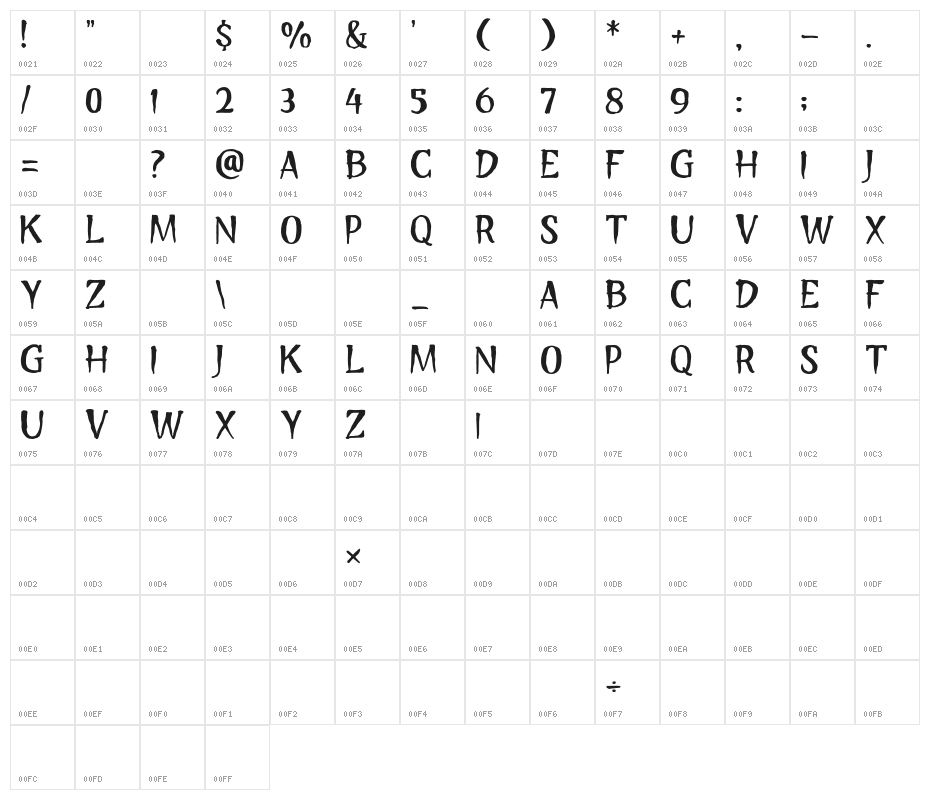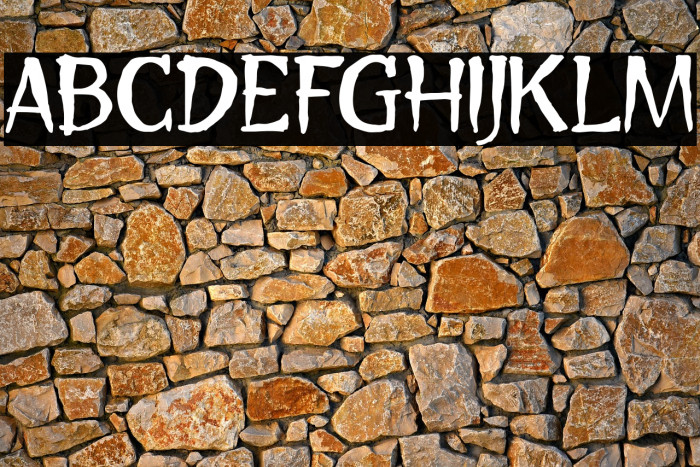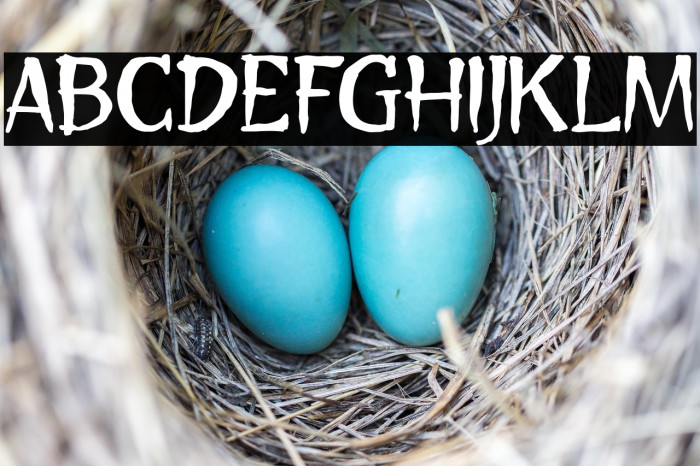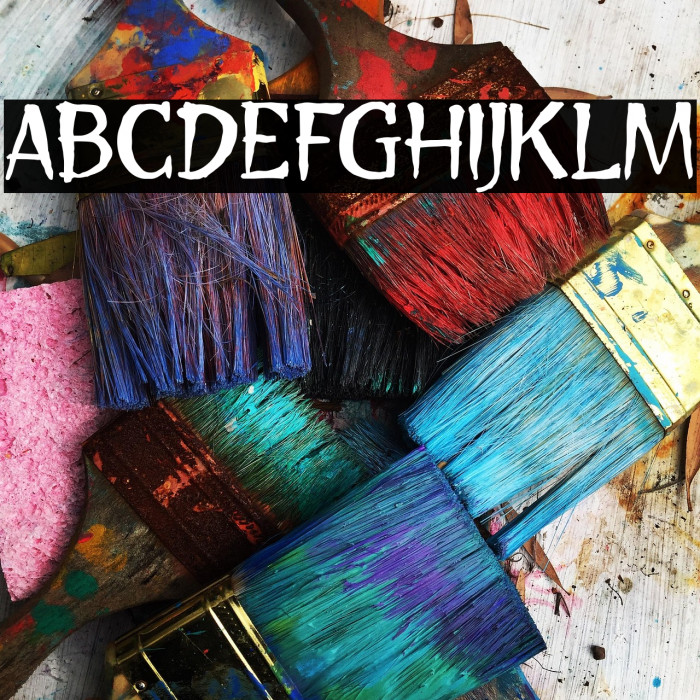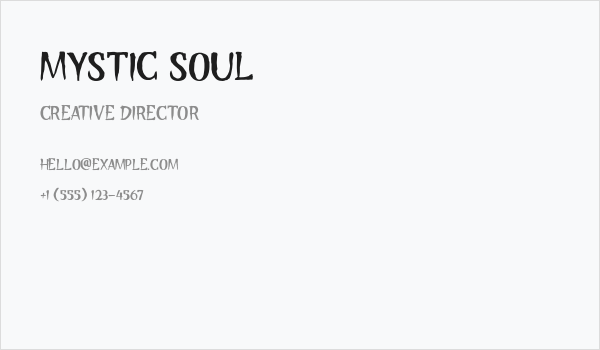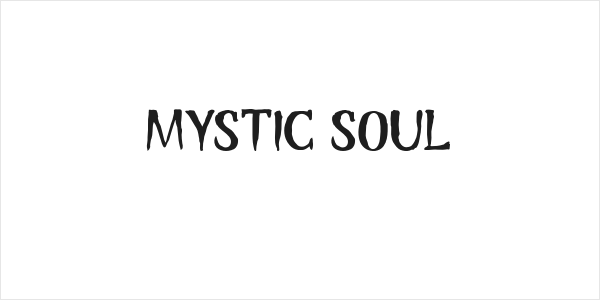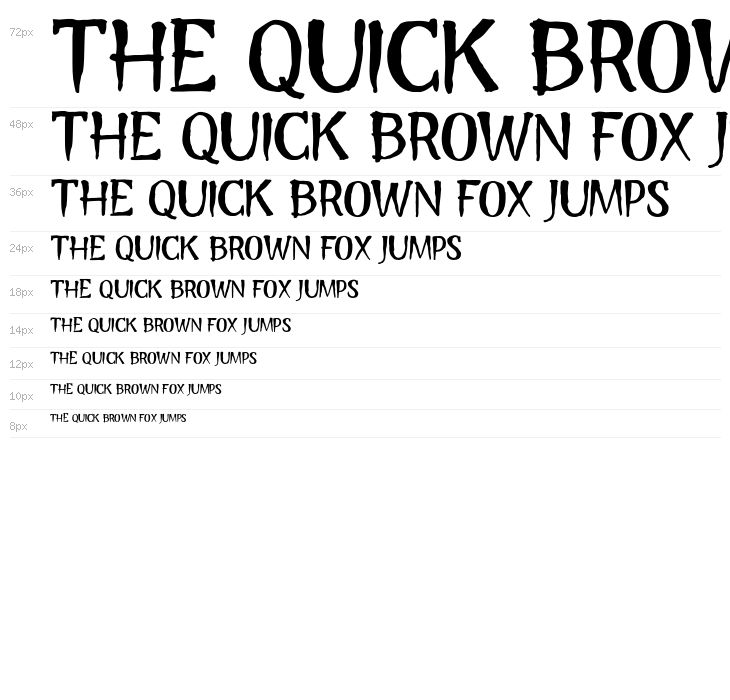
Mystic Soul Font
Mystic Soul Description
This font exudes a mystical and artistic flair, characterized by its hand-drawn, brush-like strokes. The letters have an uneven, organic quality, giving them a unique, handcrafted appearance. The uppercase and lowercase characters maintain a consistent style, with slightly exaggerated serifs and varying stroke widths that add to its charm. The numbers and special characters follow the same artistic theme, ensuring a cohesive look across all text elements. This font is perfect for projects that require a touch of creativity and individuality.
| Overall Style | Artistic, Handcrafted |
| Use Case | Headlines, Artistic projects, Branding |
| Proposed Projects | Ideal for creative projects such as book covers, posters, artistic branding, and invitations. |